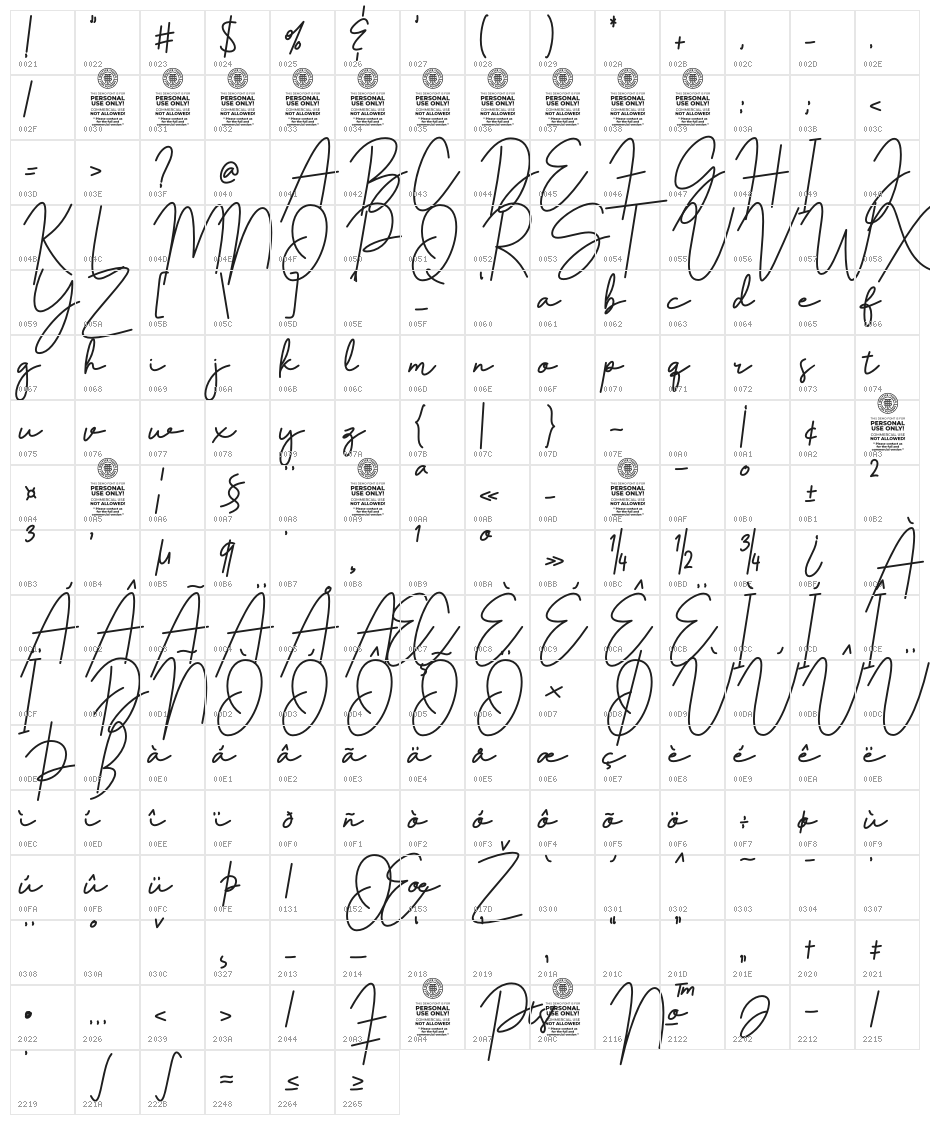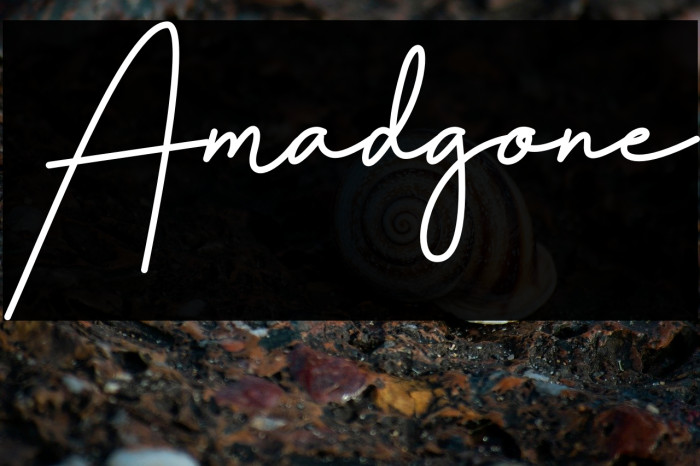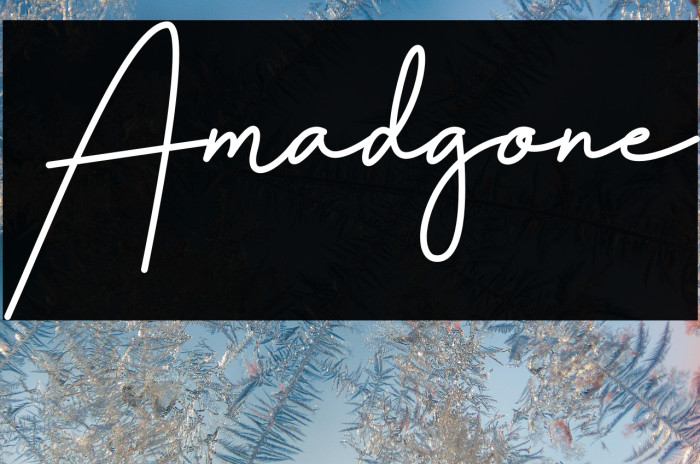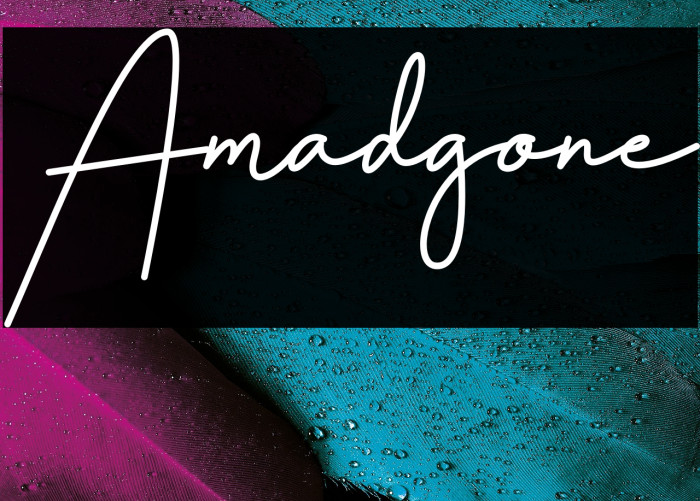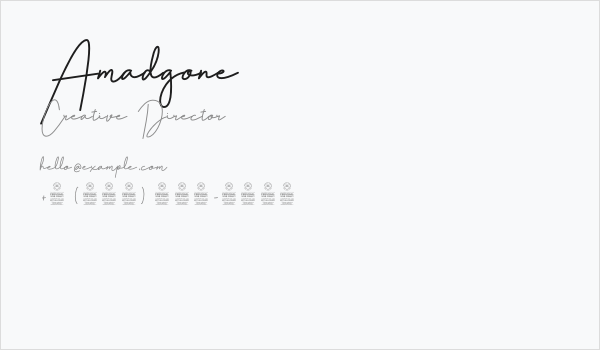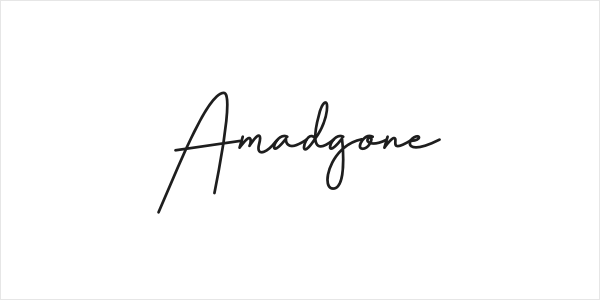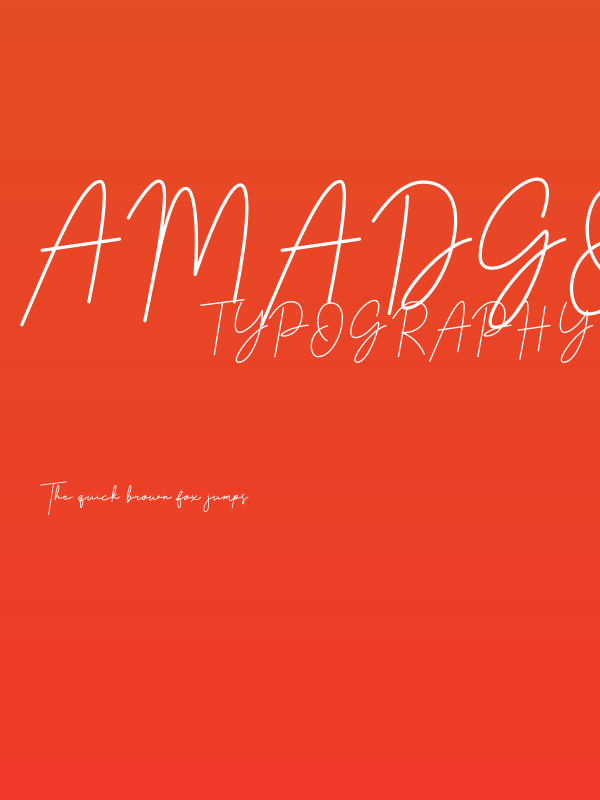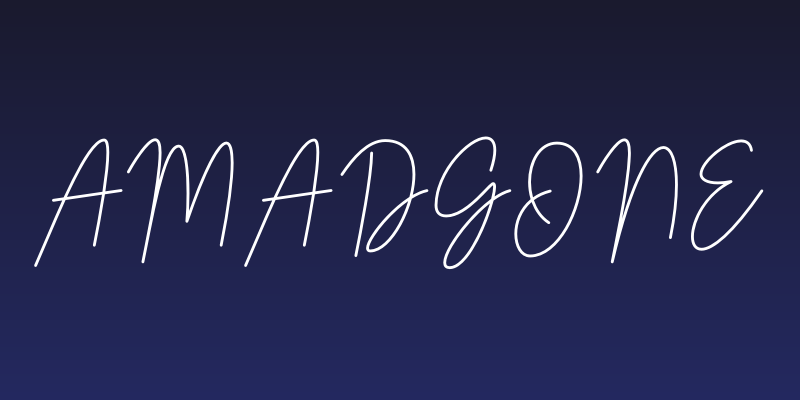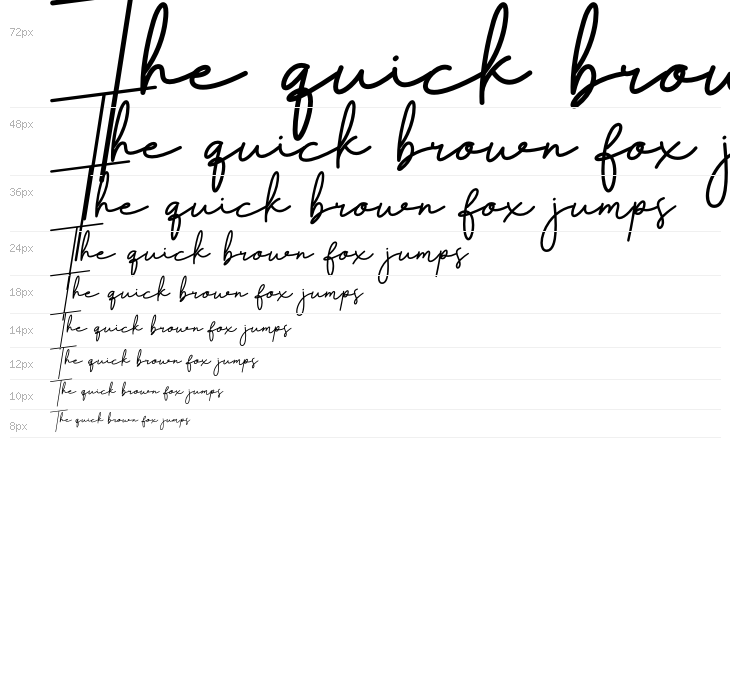
Amadgone Font
Amadgone Description
A flowing, cursive script font with a handwritten style, featuring smooth, connected letters and a casual elegance.
| Use Case | Logos, Invitations, Greeting cards |
| Proposed Projects | Invitations, greeting cards, personal branding. |